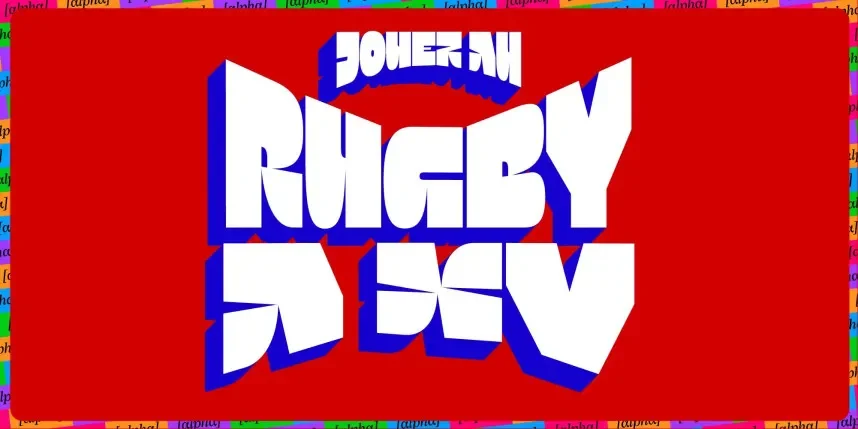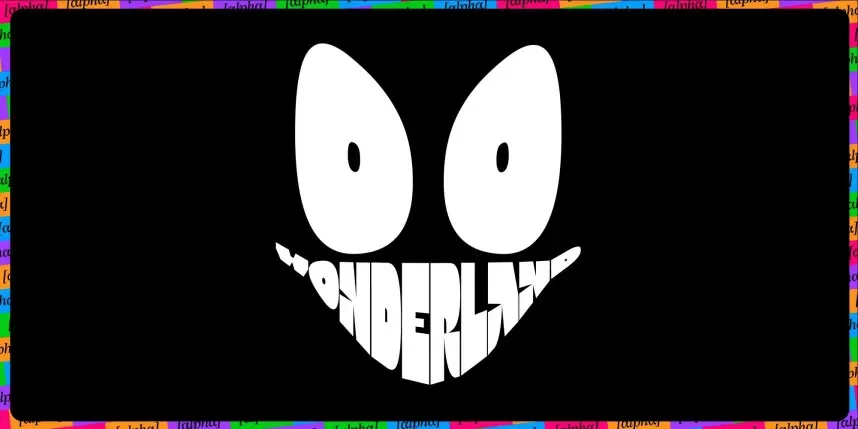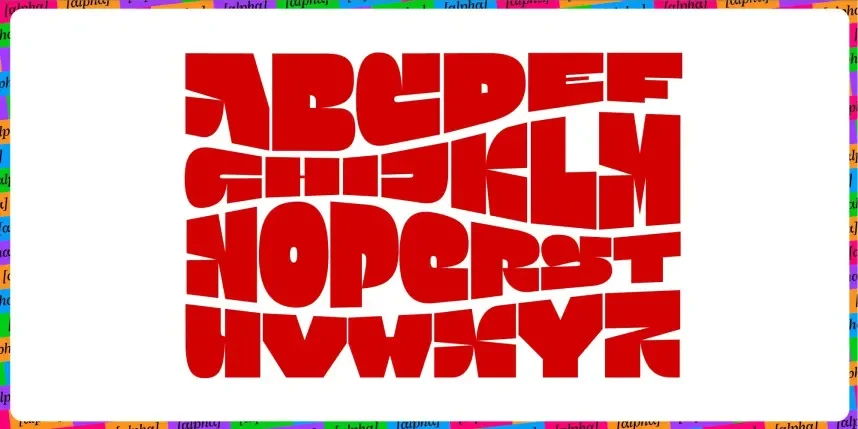
Jack Font Family is a sans-serif type system created to address readability and consistency across branding, UI design, and digital products. Designers often need multiple weights and styles to keep logos, interfaces, and layouts unified without switching fonts between headings and body text.
Jack Font Family includes a range of weights that follow consistent proportions and spacing. The letterforms use clean strokes, open apertures, and balanced x-height, which supports legibility on screens and in print. The family structure allows designers to build hierarchy using one font system instead of mixing unrelated typefaces. It typically supports uppercase and lowercase letters, numerals, punctuation, and basic multilingual characters.